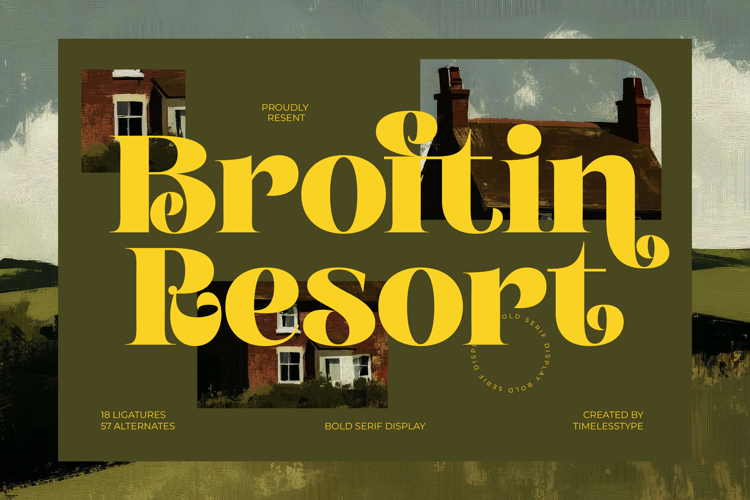
Broftin Resort - Bold Serif Display
Achieve immediate visual dominance with Broftin Resort - Bold Serif Display. This typeface masterfully merges the nostalgic charm of vintage display styles with uncompromising modern elegance. Its massive, high-contrast letterforms demand attention, featuring bold, commanding stems juxtaposed with delicate, flowing terminals and ball serifs. It’s the perfect solution for designers seeking a font that exudes both timeless sophistication and powerful visual weight, ensuring your headline or logotype resonates with depth and authority.